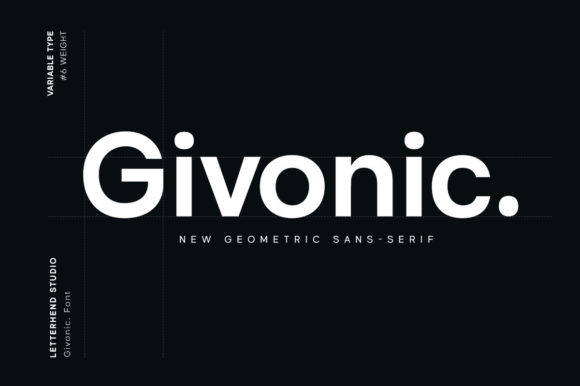
Are you searching for the perfect font to elevate your technology logo design? Look no further than Givonic Font! Created by the talented designers at letterhend, this minimal and clean sans serif font is specifically crafted to bring your logo to the next level. With its versatility and captivating appeal, Givonic Font is the ultimate choice for those seeking to make a bold statement in the digital world.
Givonic Font is the epitome of modernity and sophistication. Its sleek and stylish design will instantly captivate your audience, leaving a lasting impression. Whether you're designing a website, an app, or any other digital platform, Givonic Font will effortlessly enhance your content and make it visually striking.
With its extensive range of characters and symbols, Givonic Font offers endless possibilities for creative expression. Whether you're aiming for a futuristic look or a sleek and professional feel, this font has got you covered. Its versatility allows it to seamlessly adapt to any project, ensuring that your logo will always be on point.
Stand out from the crowd and let Givonic Font showcase your innovative ideas. This font adds a touch of uniqueness and originality to your designs, setting you apart from your competitors. Its clean lines and contemporary aesthetic will communicate professionalism and reliability, instantly gaining the trust of your audience.
But Givonic Font is not just about looks. It also offers exceptional readability, ensuring that your message is easily conveyed to your target audience. The carefully crafted letterforms guarantee legibility across different devices and screen sizes, making your logo effortlessly accessible to users.
Choosing Givonic Font means choosing excellence. Its high-quality design and attention to detail make it the perfect choice for professionals who demand nothing but the best. Whether you're a graphic designer, a web developer, or a branding expert, this font will exceed your expectations and take your projects to new heights.